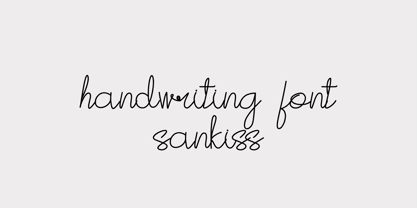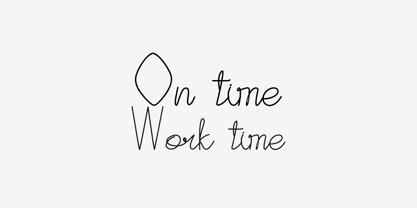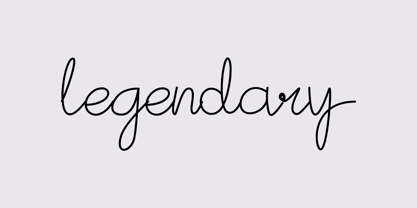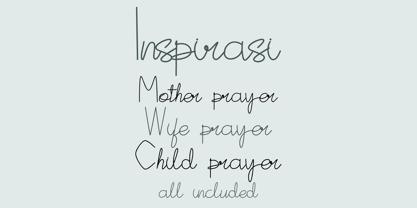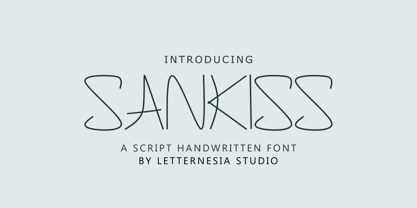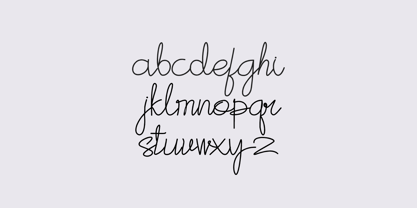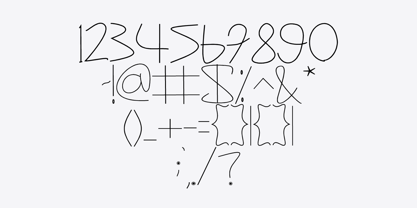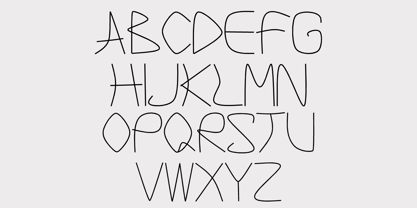
Sankiss
by Letternesia studio
The Sankiss Font Family was designed by Ta Siyo and published by Letternesia studio. Sankiss contains 1 styles.
The Sankiss font is a modern typeface characterized by its elegant and casual style, often used in designs that aim to convey a soft and feminine touch. Its signature feature is the smooth, curved strokes resembling handwritten lettering, making it ideal for logos, invitations, greeting cards, and branding that requires a personal, artistic feel. The letters usually showcase a neat yet relaxed appearance, with slightly rounded edges and a focus on aesthetic beauty. This font strikes a balance between refinement and playfulness, making it versatile for various creative projects.
Designers: Ta Siyo
Publisher: Letternesia studio
Foundry: Letternesia studio